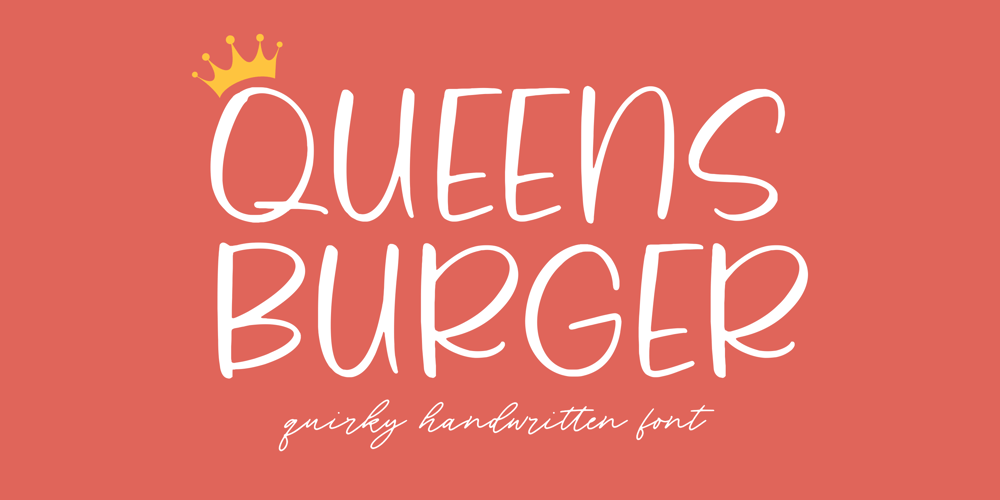
Queens Burger
Queens Burger font
Queens Burger Font Family was designed by Restu Angga and published by Balpirick. Queens Burger contains 1 styles and family package options. Queens Burger is a Quirky Handwritten Font.Whether you’re using it for crafts, digital design, presentations, or making greeting cards, this font has the potential to become your favorite go-to font, no matter the occasion!This font only has allcaps letters. – also multilingual supportEnjoy the font! Feel free to comment or feedback!Thank you!